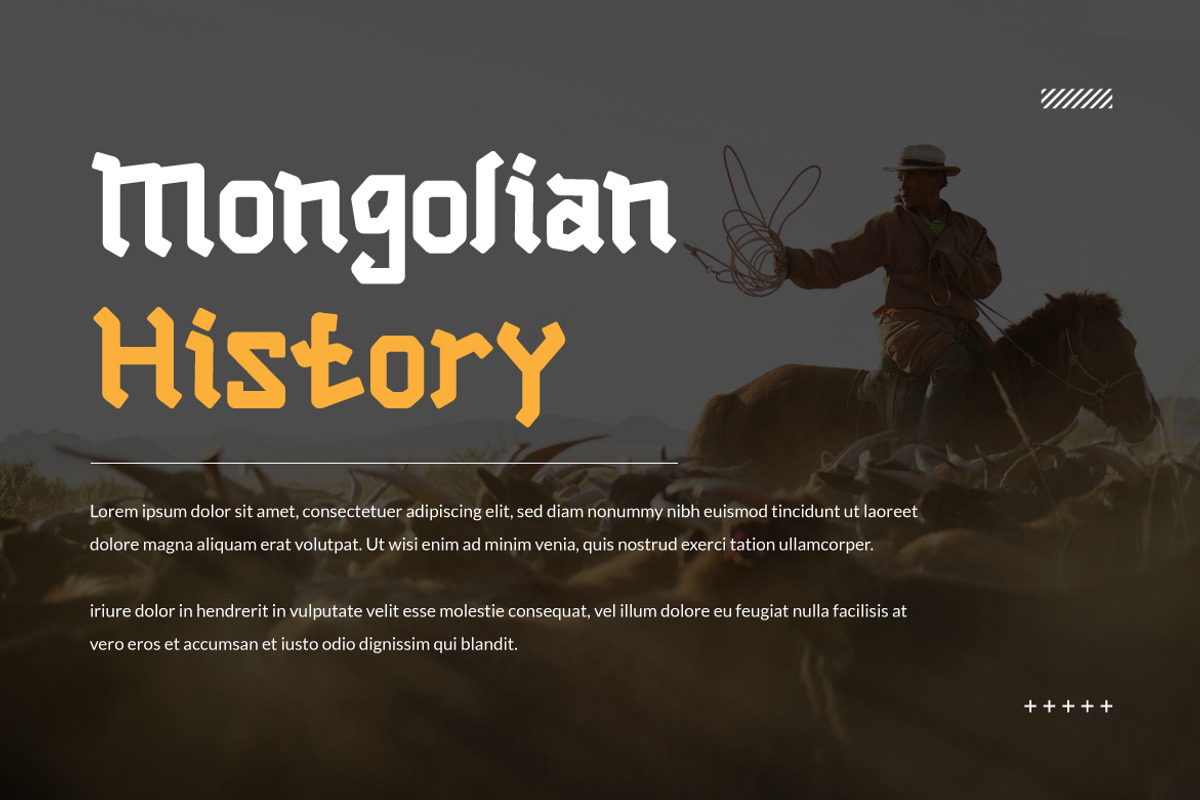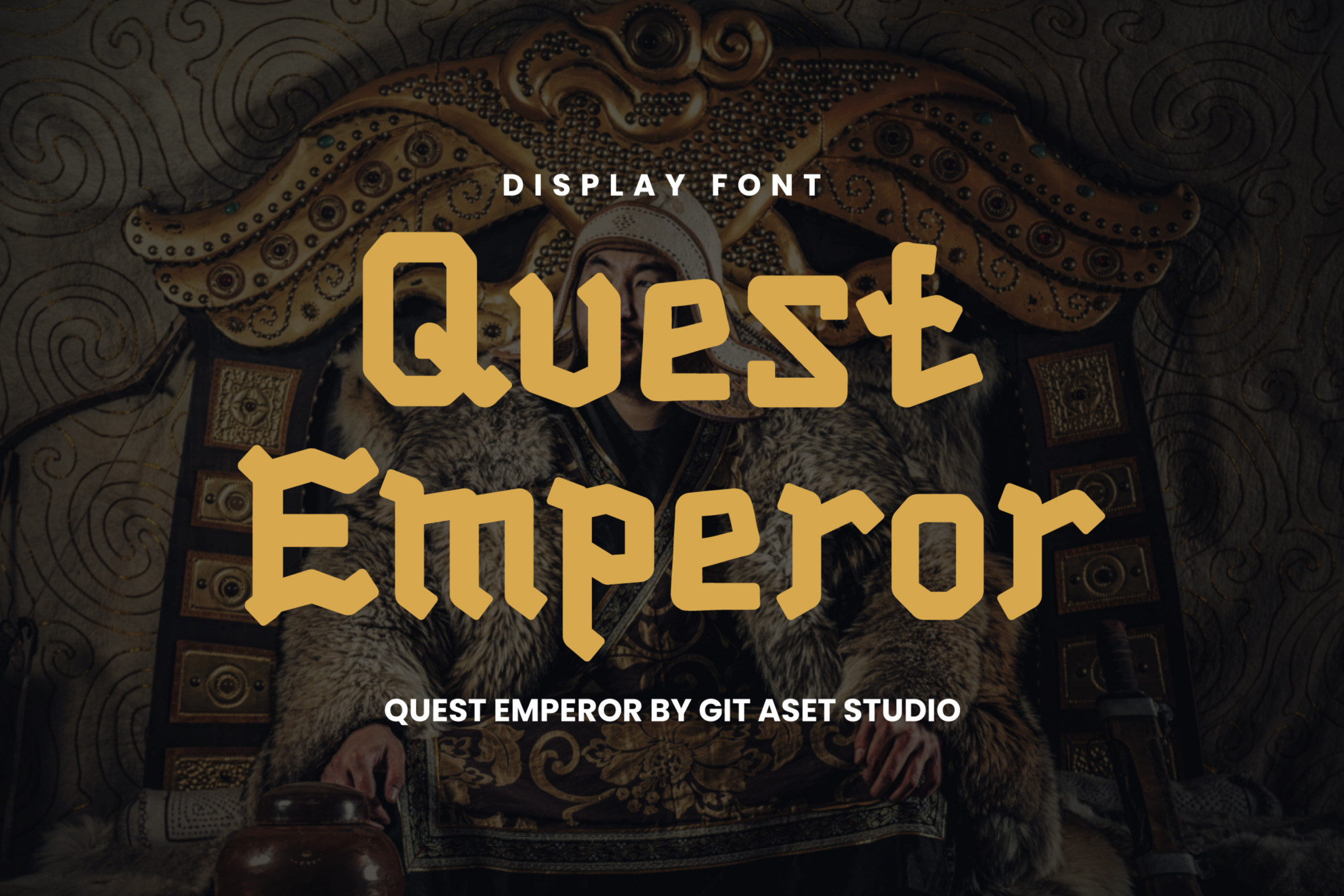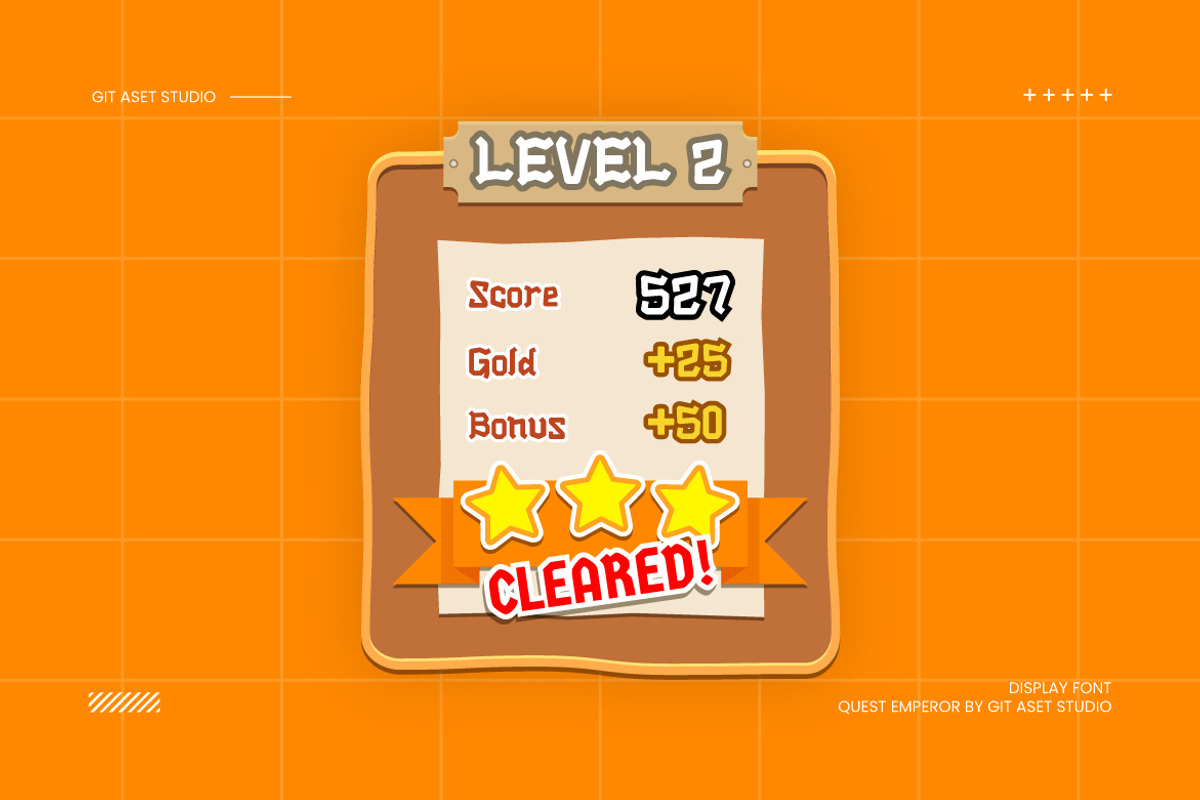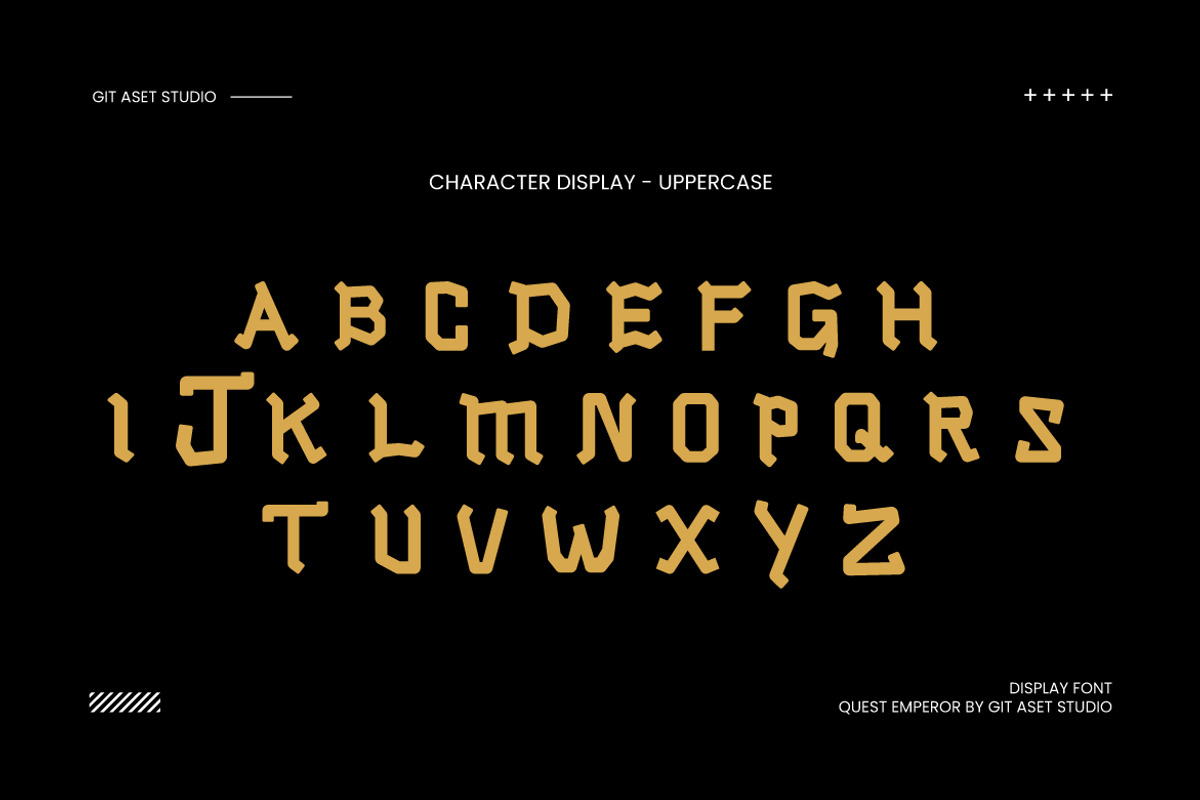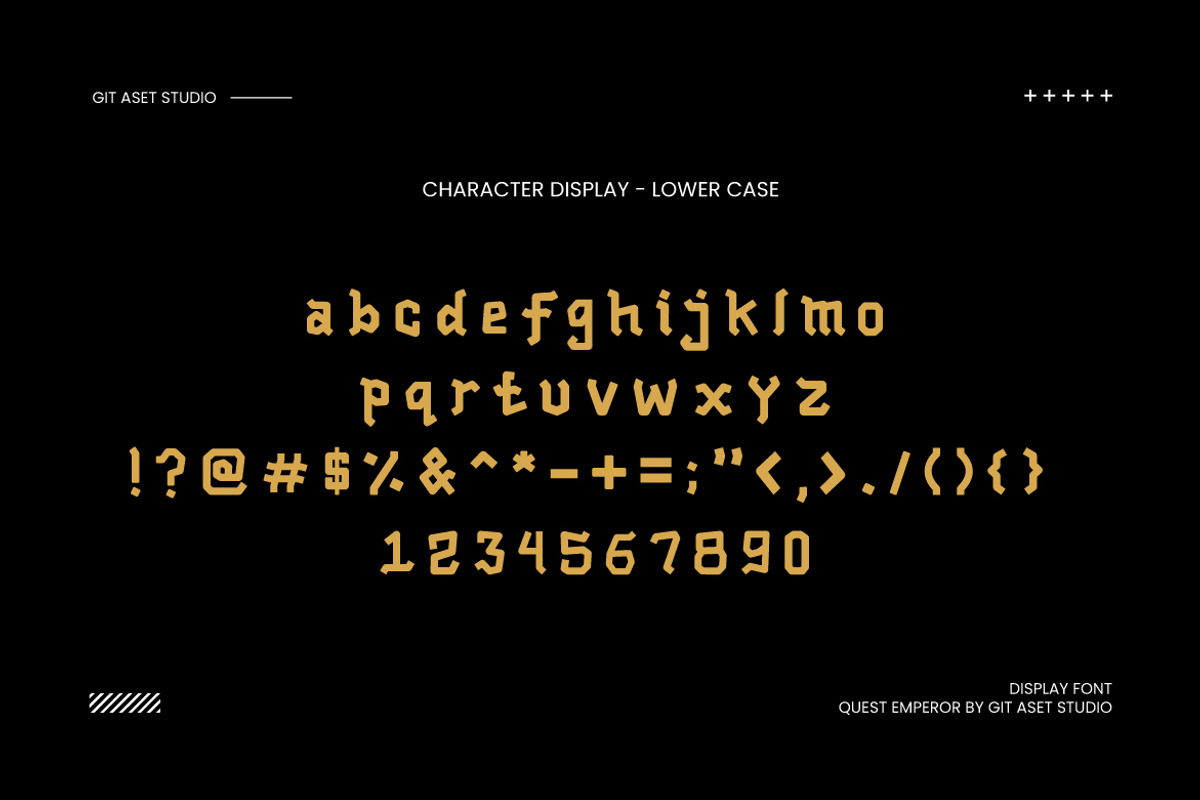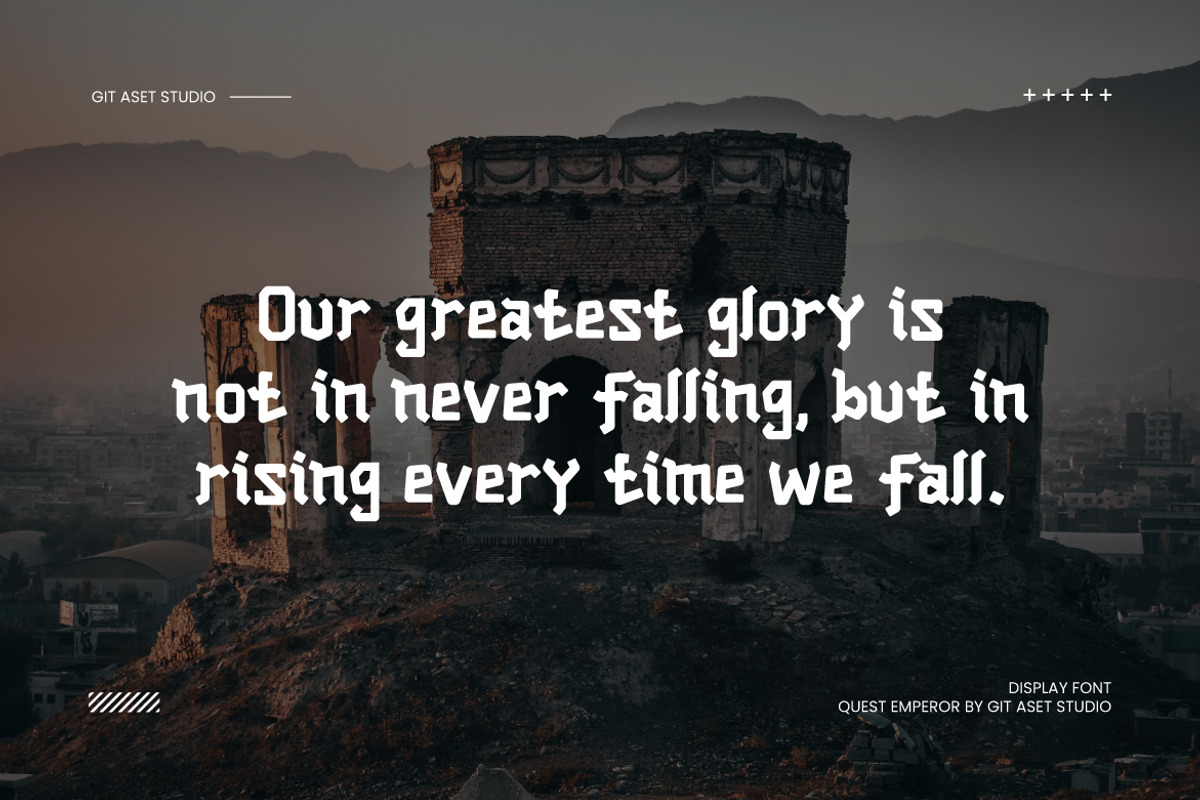
Quest Emperor - Vintage Style Font
Quest Emperor - Ancient Style Font
The Vintage Style Font is a versatile and eye-catching design asset that offers a unique and timeless appeal. With its classic and retro-inspired look, this font is perfect for various creative projects that require a touch of nostalgia and elegance. The Vintage Style Font is available in both OTF and TTF file formats, ensuring compatibility across different platforms and software.
Featuring a clean and clear design, this font is ideal for various print materials such as logos, branding materials, packaging, posters, and invitations. Its vintage aesthetic adds a touch of sophistication and authenticity to any design project.
Whether you are working on a vintage-inspired branding project for a whiskey distillery, creating a retro-styled menu for a hipster café, or designing elegant wedding invitations with a classic twist, the Vintage Style Font is the perfect choice. Its versatility allows it to adapt to various themes, making it suitable for a wide range of design projects.